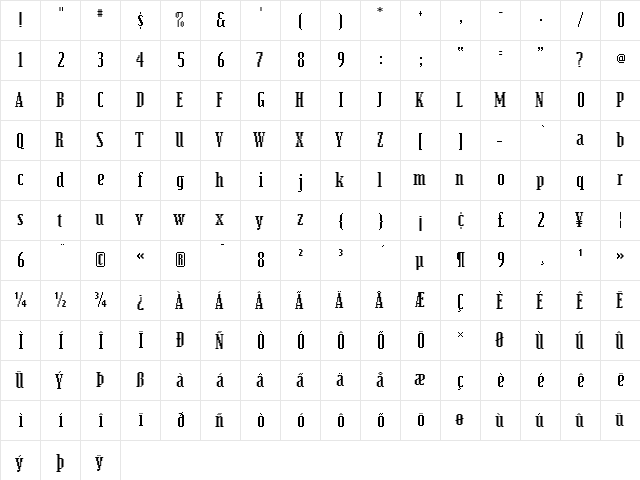
EmigreFifTeen Regular
Design Context for EmigreFifTeen Typeface
EmigreFifTeen takes a measured approach to typography — its balanced proportions and neutral character make it a reliable workhorse for both digital and print work.